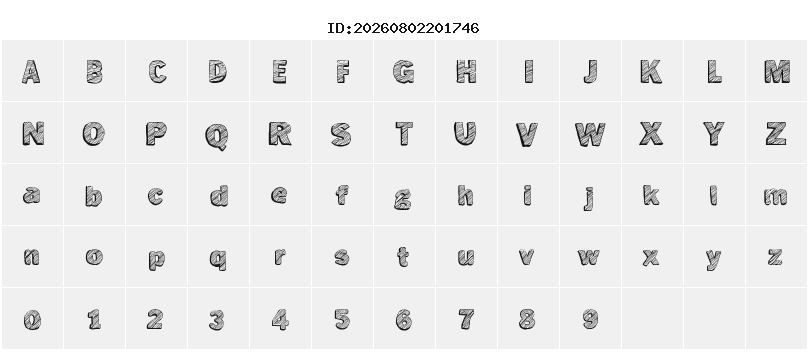
• Font Name: Not Tuned TV
• Designer: Galdino Otten
About Not Tuned TV.ttf
Not Tuned TV.ttf is a modern, elegant sans-serif font designed for ultimate readability and visual harmony. Perfect for branding, headlines, web design, and print materials.